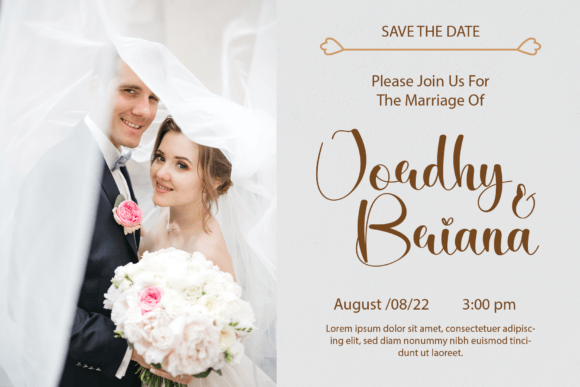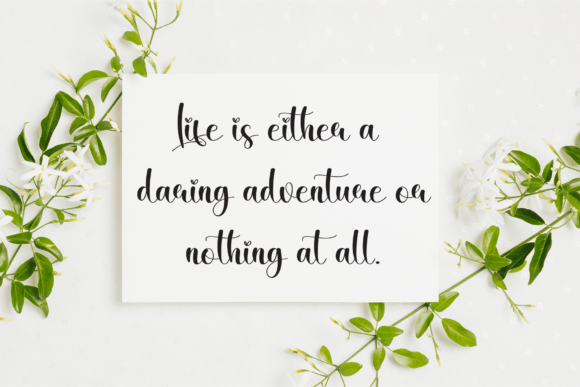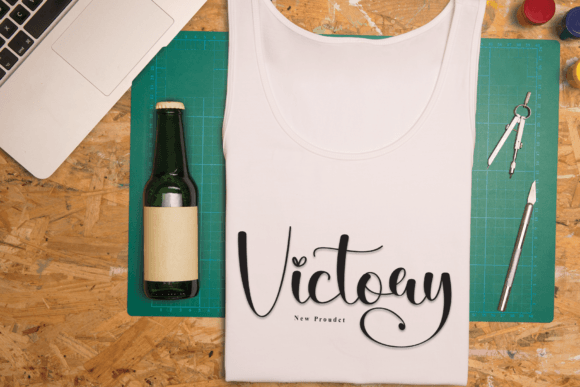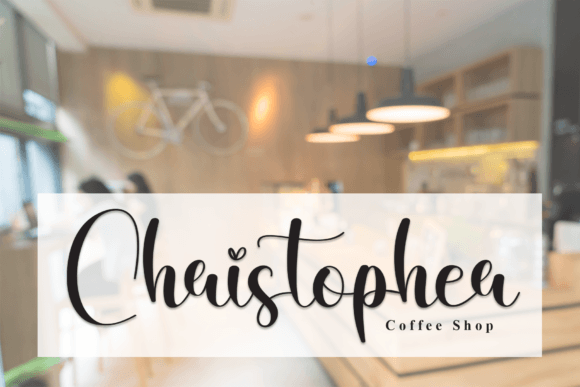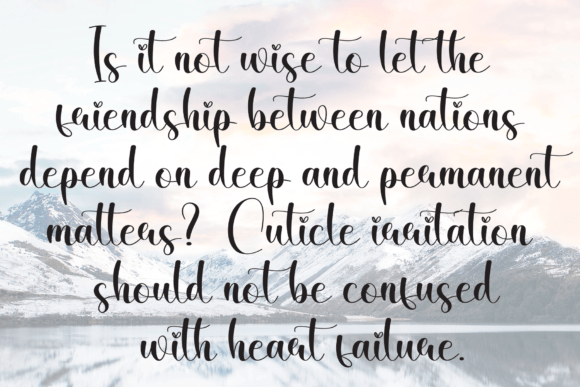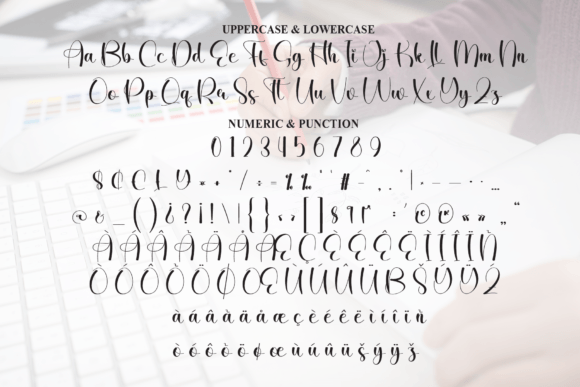
Discover the Charm of Grading Font: Elevate Your Designs with Elegance
In the world of typography, fonts play a crucial role in conveying the tone and aesthetic of a design. For those seeking a touch of elegance and personalization, Grading Font emerges as a standout choice. This lovely handwritten font is characterized by its natural, elegant style, making it an ideal selection for a variety of creative projects. In this article, we’ll delve into the features of Grading Font, explore its uses, and understand why it has become a favorite among designers and crafters alike.
The Essence of Grading Font
Grading Font is distinguished by its smooth, flowing letters that exude a sense of sophistication and charm. Its handwritten nature gives it a personal touch, setting it apart from more conventional fonts. This unique quality makes Grading Font perfect for personal projects, special invitations, and creative designs where a distinctive look is desired.
Key Features of Grading Font
- Elegant and Natural Style: Grading Font boasts a natural, elegant style that adds a layer of sophistication to any text.
- Handwritten Touch: The font’s handwritten characteristics provide a personal touch, making it suitable for projects where individuality is key.
- Easy to Read: Despite its elegant and flowing design, Grading Font remains easy to read, ensuring that your message is communicated clearly.
- Versatile: From personal notes and invitations to creative designs and projects, Grading Font’s versatility makes it a valuable addition to any designer’s toolkit.
Applications of Grading Font
The versatility of Grading Font allows it to be used in a wide range of applications. Here are some popular uses:
- Personal Projects: Whether you’re creating a personal blog, crafting a journal, or designing custom stationery, Grading Font adds a touch of elegance and personality.
- Invitations: Make your invitations stand out with Grading Font. It’s perfect for wedding invitations, birthday parties, and other special occasions.
- Creative Designs: For designers, Grading Font can be used in branding projects, packaging designs, and advertising materials to give a unique and personalized look.
- Crafting and DIY Projects: Crafters can use Grading Font in their DIY projects, such as handmade cards, scrapbooking, and other paper crafts.
Tips for Using Grading Font Effectively
To maximize the impact of Grading Font in your designs, consider the following tips:
- Pair with Complementary Fonts: For optimal results, pair Grading Font with fonts that complement its elegant and flowing style. A simple sans-serif font can work well for headings and body text.
- Adjust Letter Spacing: Depending on the context, adjusting the letter spacing can enhance the readability and aesthetic of Grading Font.
- Use for Headlines and Body Text: While Grading Font excels in headlines and titles, it can also be used for body text, especially in smaller doses or for emphasized paragraphs.
Grading Font offers a unique blend of elegance, personality, and readability, making it a valuable asset for designers and crafters. Its smooth, flowing letters and natural style ensure that any project stands out with a touch of sophistication and charm. Whether you’re working on personal projects, invitations, or creative designs, Grading Font is an excellent choice for adding a personal and elegant touch. Explore the possibilities with Grading Font and elevate your designs to a new level of elegance and charm.
Discover the beauty of Grading Font and let your designs speak with elegance and grace.